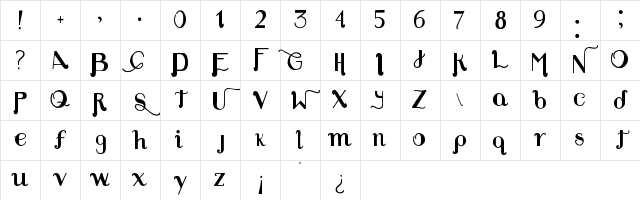
Louie's Font Louie's Font
Style: Louie's Font
Foundry: Lola Diaz Cantoni
Designer: Lola Diaz Cantoni
Design Context for Louie's Font
Louie's Font is a composed and adaptable typeface that performs quietly and consistently across a wide range of design contexts.